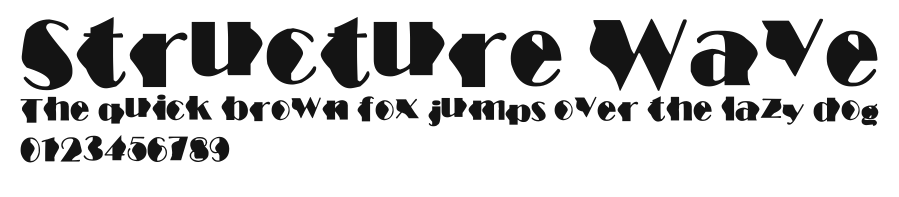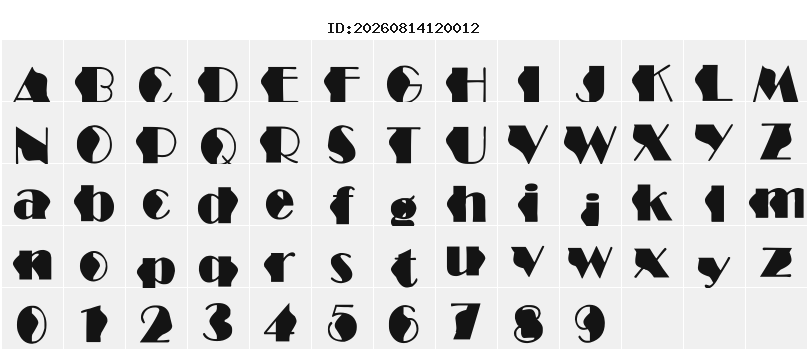
Structure Wave Preview
• Font Name: Structure Wave
• Full Font Name: Structure Wave
• Description: This font was created using Scanahand from High-Logic.com
About Structure Wave.ttf
Structure Wave.ttf is a modern, elegant sans-serif font designed for ultimate readability and visual harmony. Perfect for branding, headlines, web design, and print materials.